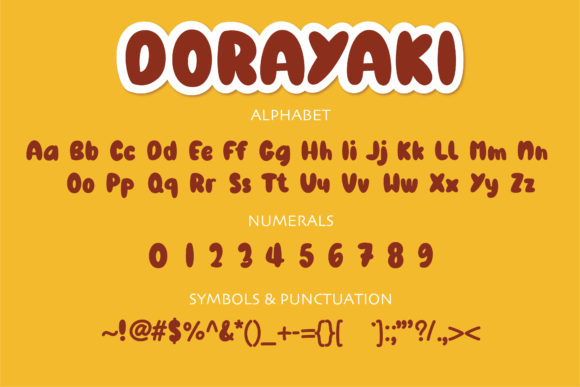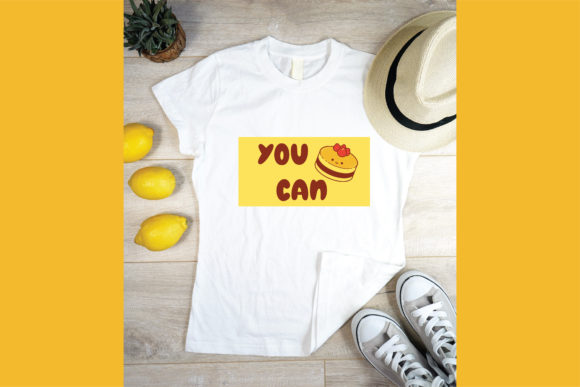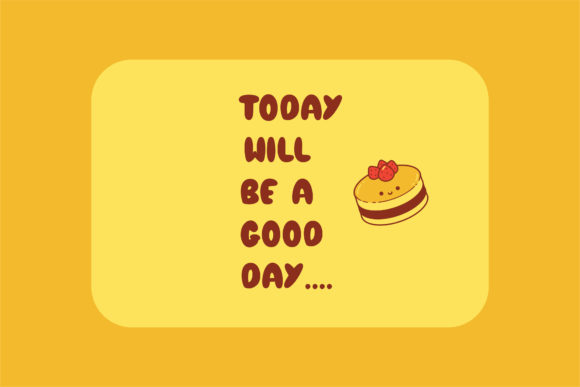
Introduction to Dorayaki Font
Have you ever stumbled upon a font that instantly sparks your creativity? For designers, finding the perfect font can be a game-changer in any project. It’s that magical moment when the words on the page come alive, and the design starts to take shape. For me, that moment happened when I discovered the beautiful Dorayaki Font.
As a design resource, the Dorayaki Font is a treasure trove of possibilities. Its unique, handwritten style lends itself perfectly to a wide range of creative projects, from wedding invitations to business cards. What sets it apart is its flexibility and high-quality design, making it a valuable addition to any designer’s toolkit.
With a transparent background and stunning variations, the Dorayaki Font is a free download waiting to be explored. Whether you’re working on a personal project or a high-profile client, this font is sure to add a touch of elegance and sophistication to your designs.
Dorayaki Font
- High-quality design resource suitable for various creative projects, including graphic design, digital art, and publishing.
- Features a transparent background, making it easy to overlay on different images and backgrounds.
- Includes a comprehensive character set, covering a wide range of languages and characters.
- Unique, hand-crafted design with a distinctive style, perfect for adding a touch of elegance and sophistication to any creative project.
Honest Review: Dorayaki Font
As a designer, I’ve come across numerous design resources that promise to elevate my creative projects, but few have truly delivered. The Dorayaki Font is one such find that has impressed me with its simplicity and elegance.
- High-quality glyphs that are crisp and clear, making it perfect for digital and print media.
- A wide range of language support, making it an excellent choice for international projects.
- Transparent background option, allowing for seamless integration with various design elements.
The Dorayaki Font’s limitations lie in its limited font styles, which may not be suitable for projects requiring a diverse font palette.
Overall Impression
Despite its limitations, I find the Dorayaki Font to be a valuable design resource that can add a touch of sophistication to any creative project. The free download option makes it an attractive choice for designers on a budget. Overall, I would recommend the Dorayaki Font for its high quality and versatility.
For best results, use Dorayaki Font in conjunction with other high quality design resources. Experiment with different font sizes and colors to create a unique and eye-catching design.
Dorayaki Font is perfect for use in logo design, branding, and other creative projects where a high quality, elegant font is desired. It is also a great choice for use in social media graphics, business cards, and other marketing materials.